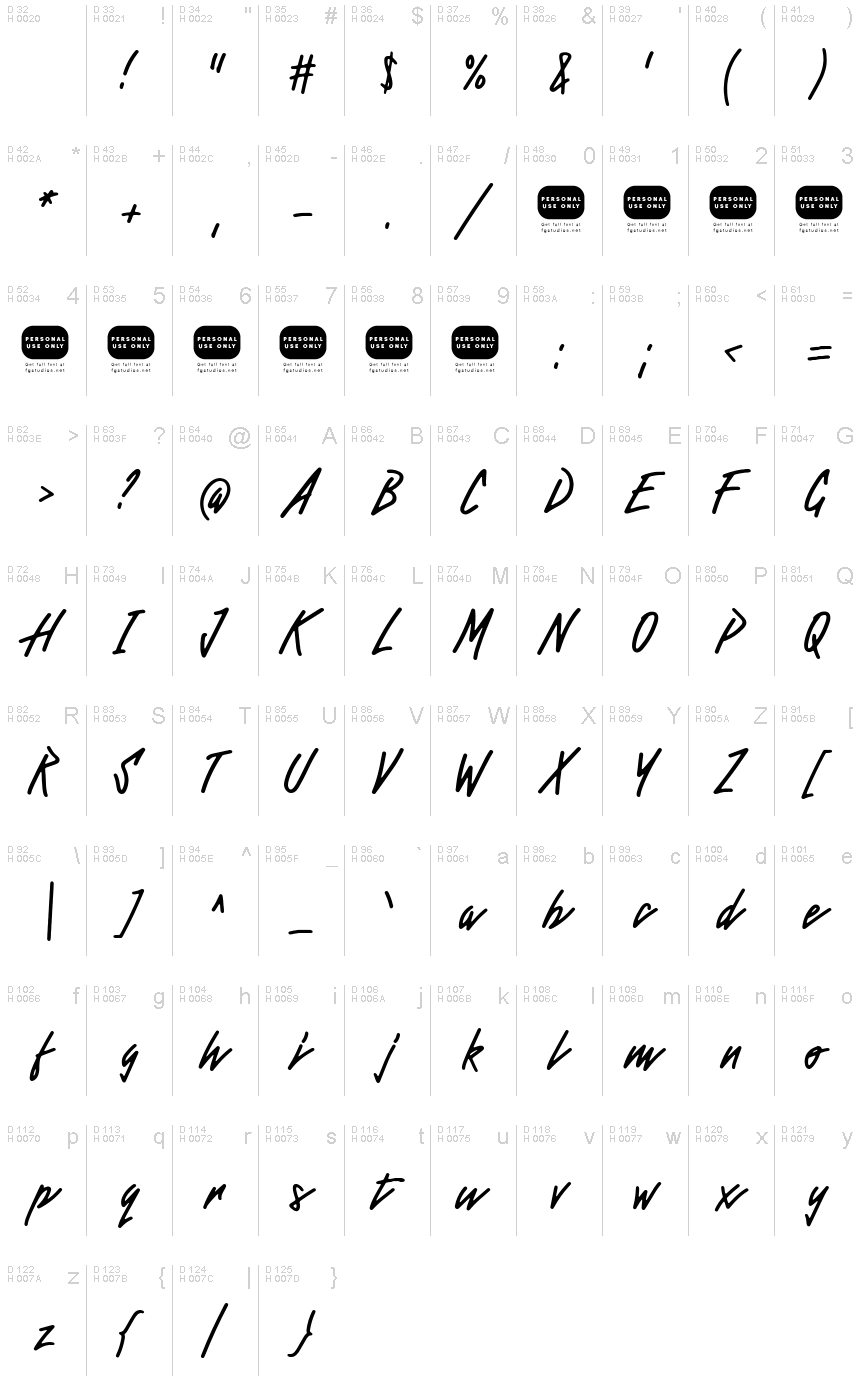
Hurimate
Hurimate font by FG Studios captivates with its dynamic handwritten style. The condensed form adds a sense of elegance and sophistication, making it perfect for creative projects seeking a personal touch. This free font harmonizes spontaneity and clarity, seamlessly blending artistic curves with legible design.
Ideal for branding, invitations, or any design needing a bold statement, Hurimate infuses warmth and character into each letter. Designers can download this versatile font to enhance greeting cards, logos, and social media graphics with an authentic flair. Embrace Hurimate to elevate your text with creativity and charm.